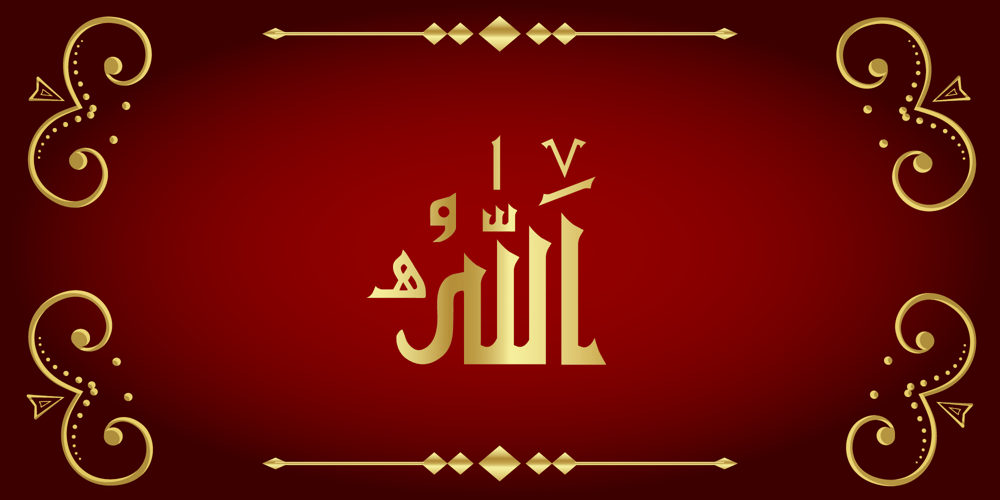
99 Names of ALLAH Straight
99 Names of ALLAH Straight font
99 Names of ALLAH Straight Font Family was designed by Ibrahim Abdo and published by Islamic Calligraphy75. 99 Names of ALLAH Straight contains 1 styles and family package options. We have transformed the “99 names of ALLAH” into a font. That means each key on your keyboard represents 1 of the 99 names of ALLAH Aaza Wajal. The fonts work with both the English and Arabic Keyboards.We call this Calligraphy “Straight” because of the straight like design. Everything is clear, symmetric and straight. The first “Alef” has a “fatha”, this indicates to pronounce the first letter. So instead of saying “R-RAHMAAN” you say “AR-RAHMAN” (in the zip file you will find a pdf file explaining the differences in the “harakat”, pronunciation and spelling according to the Holy Quran). We went for the traditional “soukoun” instead of the Quranic “soukoun” & the decorative symbols are at a minimum. Decorative letters used in this calligraphy: “Mim, Aain, Sin, HHe, He & Kaf”.Purpose & use:- Writers: Highlight the names in your texts in beautiful Islamic calligraphy.- Editors: Use with kinetic typography templates (AE) & editing software. – Designers: The very small details in the names does not affect the quality. Rest assured it is flawless.The MOST IMPORTANT THING about this list is that all the names are 100% ERROR FREE, and you can USE THEM WITH YOUR EYES CLOSED. All the “Tachkilat” are 100% ERROR FREE, all the “Spelling” is 100% ERROR FREE, and they all have been written in accordance with the Holy Quran. No names are missing and no names are duplicated. The list is complete “99 names +1”. The +1 is the name “ALLAH” ‘Aza wajal.Another important thing is how we use the decorative letters. In every font you will see small decorative letters, these letters are used only in accordance with their respective letters to indicate pronunciation & we don’t include them randomly. That means “mim” on top or below the letter “mim”, “sin” on top or below the letter “sin”, and so on and so forth.Included:Pdf file telling you which key is associated with which name.In that same file we have included the transliteration and explication of all 99 names.Pdf file explaining the differences in the harakat and pronunciation according to the Holy Quran.Here is a link to all the extra files you will need:https://drive.google.com/drive/folders/1Xj2Q8hhmfKD7stY6RILhKPiPfePpI9U4?usp=sharing